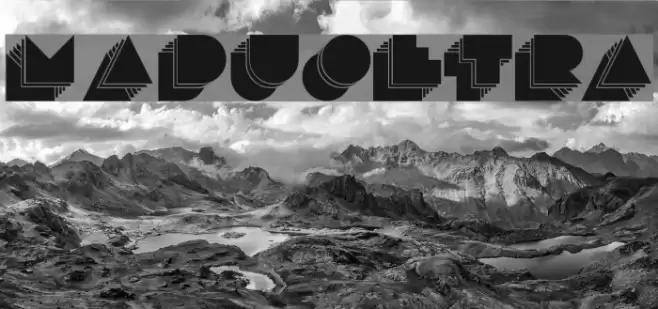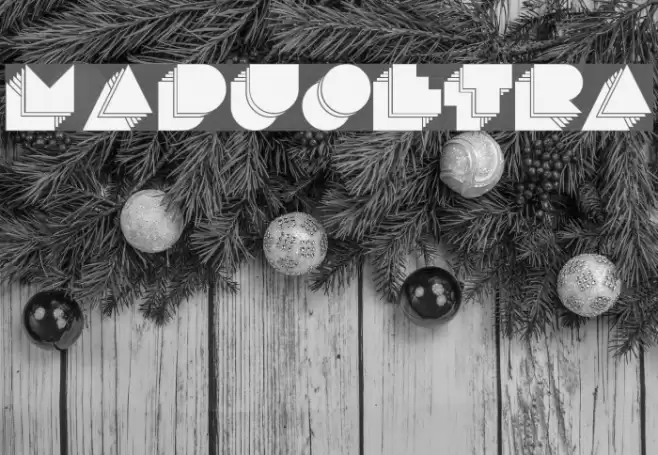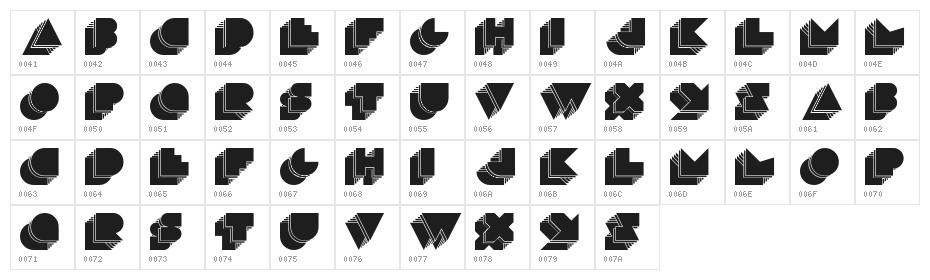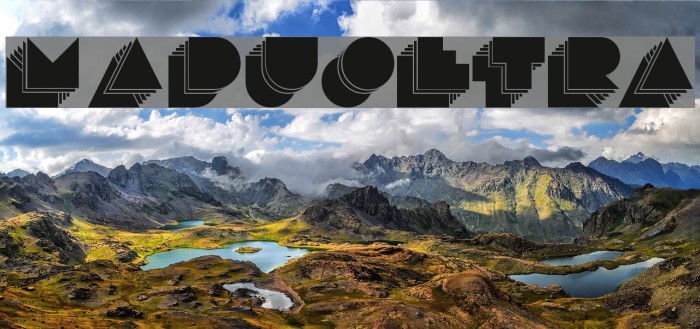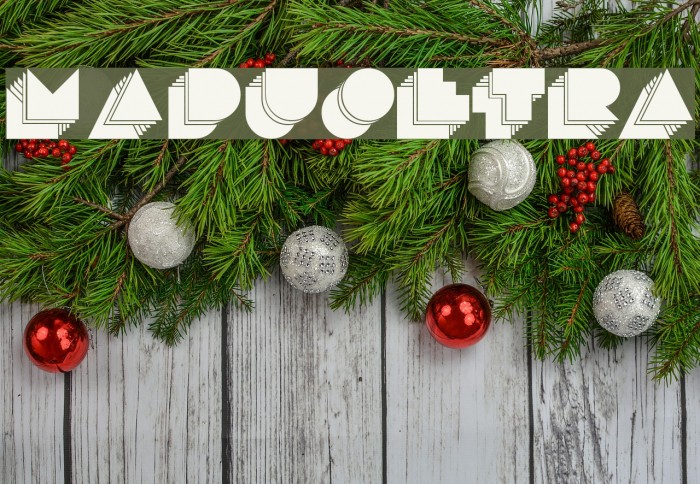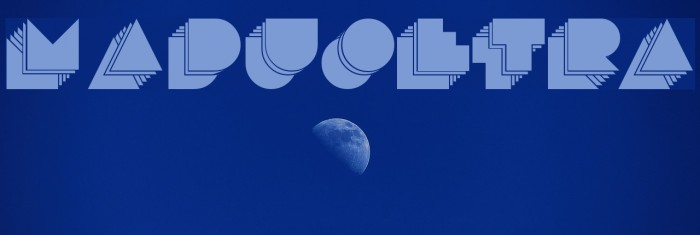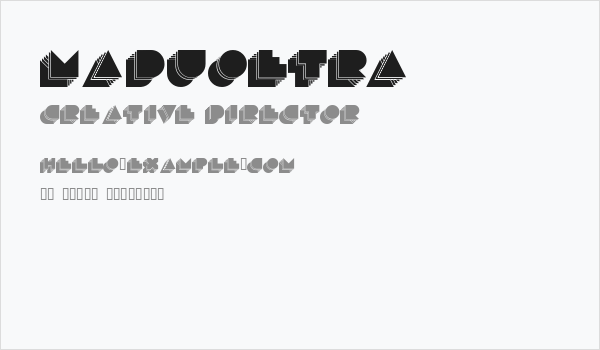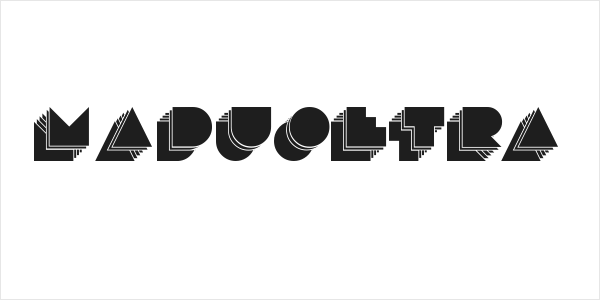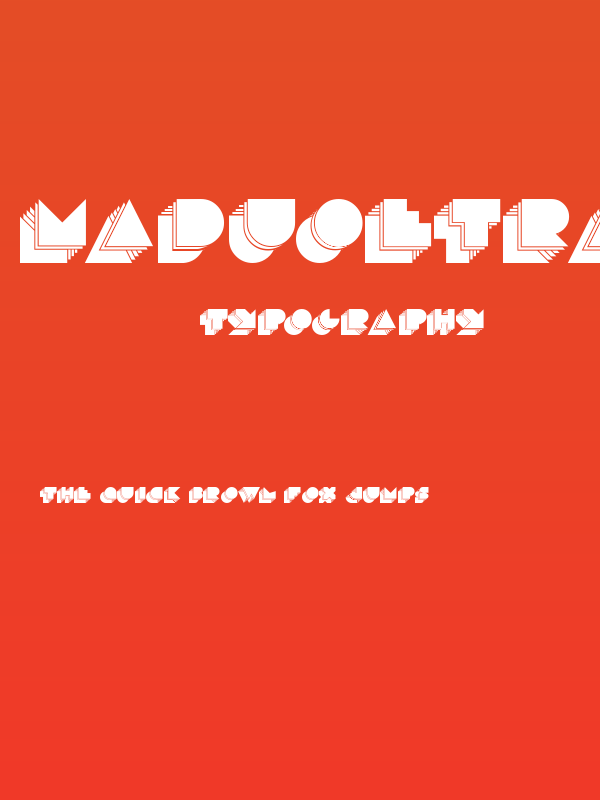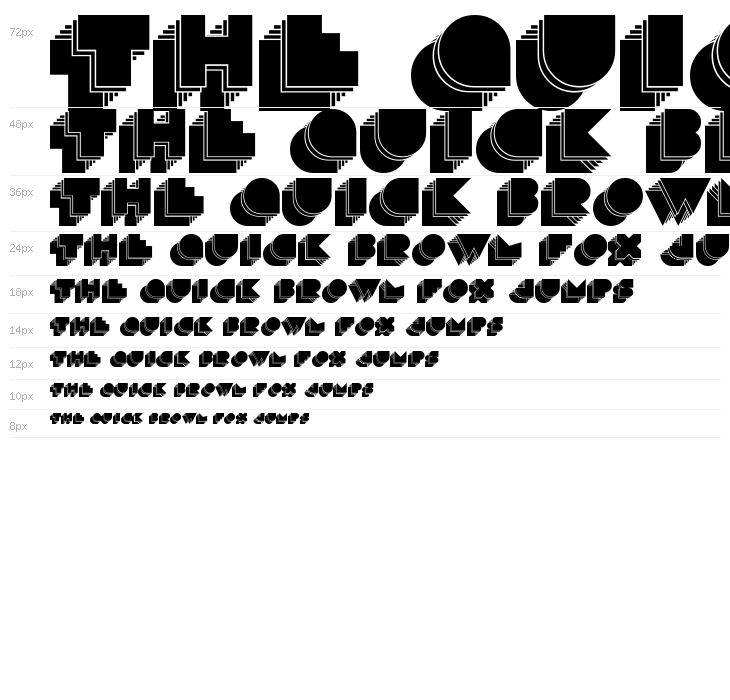
maduoETRA Font
maduoETRA Description
This font features a bold and geometric design with a distinct 3D effect created by diagonal lines that give a sense of depth and movement. The characters are constructed with sharp angles and straight edges, creating a modern and dynamic appearance. The uppercase and lowercase letters maintain a consistent style, with the lowercase being slightly smaller but equally bold. The numbers follow the same geometric pattern, ensuring uniformity across all characters. The special characters are designed to match the overall aesthetic, making them suitable for various creative applications.
A bold, geometric font with a 3D effect and sharp angles from Uncategorized fonts.
- Proposed Projects: Ideal for posters, logos, and branding projects that require a modern and eye-catching typeface.